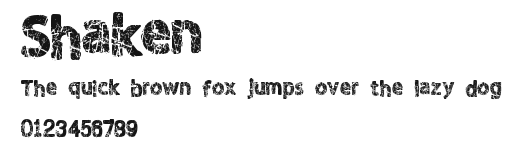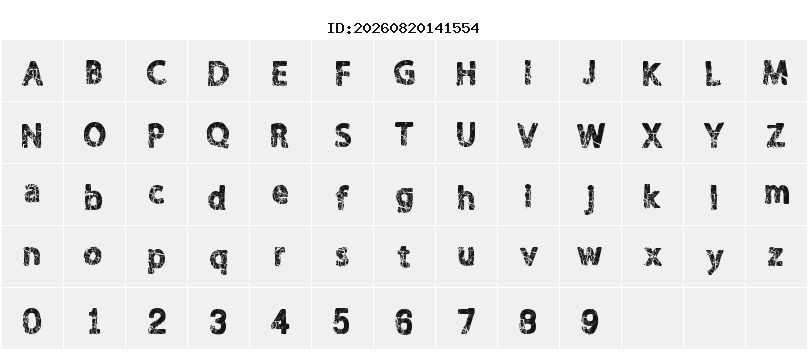
• Font Name: Shaken
• Full Font Name: Shaken
• Version: Version 1.00 July 12, 2013, initial release
• Designer: Xerographer Fonts Max Infeld
• Manufacturer: Xerographer Fonts
• Description: Made at Xerographer Studios in Chico,CA
About Shaken.ttf
Shaken.ttf is a modern, elegant sans-serif font designed for ultimate readability and visual harmony. Perfect for branding, headlines, web design, and print materials.